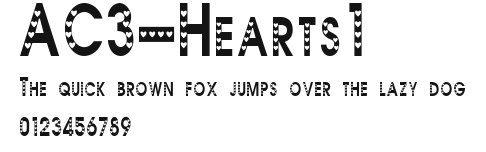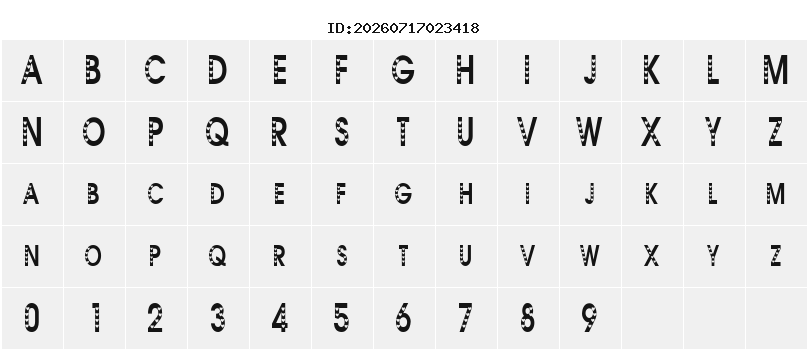
• Font Name: AC3-Hearts1
• Full Font Name: AC3 Hearts1
About AC3-Hearts1.ttf
AC3-Hearts1.ttf is a modern, elegant sans-serif font designed for ultimate readability and visual harmony. Perfect for branding, headlines, web design, and print materials.